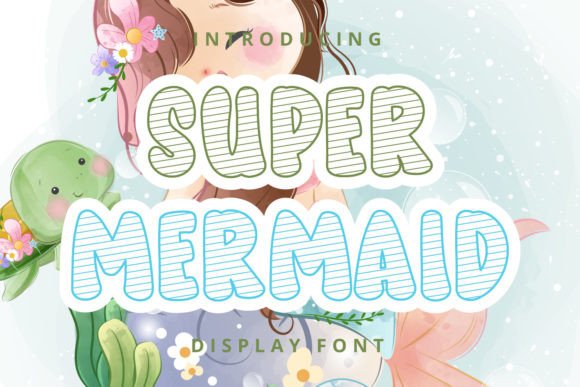
Immerse yourself in an enchanting undersea adventure with Super Mermaid Font, the ultimate display typeface designed to leave an unforgettable mark on your designs. Dive into a world of creative possibilities with this captivating font, crafted by the imaginative minds at Planetz studio.
Unleash your creativity with Super Mermaid Font, a playful and captivating display typeface that will transform your designs into extraordinary masterpieces. Whether you're crafting eye-catching headlines, enchanting logos, or alluring social media posts, this font possesses the captivating allure to leave a lasting impression.
Indulge in the limitless possibilities offered by Super Mermaid Font. Its versatility and charm extend beyond mere words, empowering you to convey emotions, spark imaginations, and evoke a sense of wonder in every creation. Allow this font to be your creative compass, guiding you towards captivating designs that resonate with audiences and leave an enduring legacy.
Elevate your designs to new heights with Super Mermaid Font, the perfect choice for adding a touch of whimsy and enchantment to your projects. Its playful strokes and enchanting curves dance across the page, creating a captivating visual spectacle that will captivate and inspire.
Embrace the allure of Super Mermaid Font and unlock a world of creative possibilities. Let this font be your muse, guiding you towards designs that soar above the ordinary and leave an everlasting mark on the hearts and minds of your audience. Immerse yourself in the depths of creativity and let your imagination take flight with Super Mermaid Font.